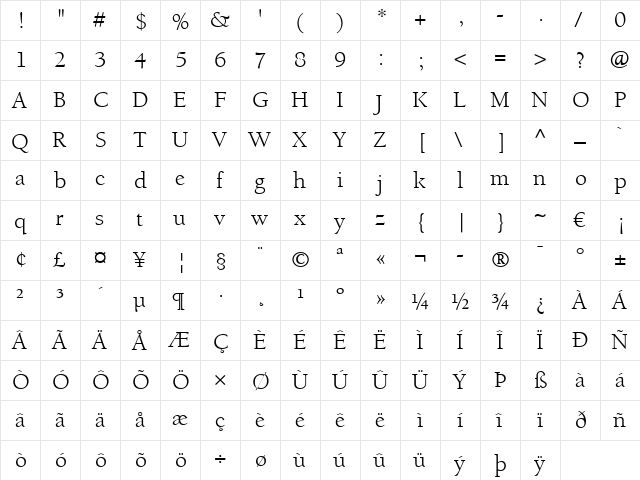
Berkeley LT Book Regular
Design Context for Berkeley LT Book Typeface
Berkeley LT Book takes a measured approach to typography — its balanced proportions and neutral character make it a reliable workhorse for both digital and print work. Its slender proportions lend an understated elegance to any composition.